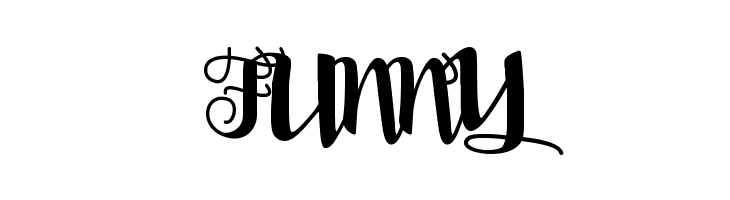
• ALDITH Script
A graceful, handwritten script font with a casual elegance.
• AldivaroDemo
A bold, geometric font with a modern industrial style.
• AldivaroRoughDemo-Rough
A bold, rough-textured font with a vintage, industrial feel.
• AldivaroRoundedDemo-Rounded
A bold, rounded font with a friendly and approachable style.
• AldivaroStampDemo-Stamp
A bold, distressed font with a vintage stamp effect.
• Aldo Dattoli
• Aldo Open
• Aldo SemiBold
A modern, geometric font with clean lines and rounded edges.
• Aldo the Apache
A bold, geometric font with sharp angles and a blocky design.
• Aldo's Moon
• Aldo's Nova
A futuristic, segmented font with a digital, high-tech appearance.
• ALDORA
A modern, geometric font with rounded edges and uniform stroke width.
• ALDORA Cutting
A modern, geometric font with unique cut-out styling and clean lines.
• ALDORA DEMO
A modern, geometric font with rounded edges and unique character designs.
• ALDORA DEMO Cutting
A modern, geometric font with clean lines and unique cut-out elements.
• ALDORA DEMO Italic
A sleek, modern italic font with consistent stroke width and elegant design.
• ALDORA DEMO Stroke
A modern, double-line stroke font with a geometric and hollow design.
• ALDORA Italic
A modern, italic font with consistent stroke width and smooth, rounded characters.
• ALDORA Stroke
A modern, double-line outline font with geometric shapes and clean lines.
• Aldos
A playful, casual handwritten font with rounded, irregular letterforms.
• Aldrich
A modern, geometric sans-serif font with a clean and technical look.
• Aldrich Regular
A modern, geometric sans-serif font with uniform stroke widths and a sleek design.